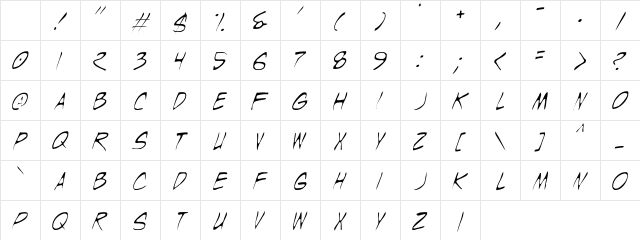
Complete Wyld Stallyns Thin Thin glyph index. Displaying only characters natively supported by Wyld Stallyns Thin Thin font.
Wyld Stallyns Thin is a composed and adaptable typeface that performs quietly and consistently across a wide range of design contexts. Its slender proportions lend an understated elegance to any composition.